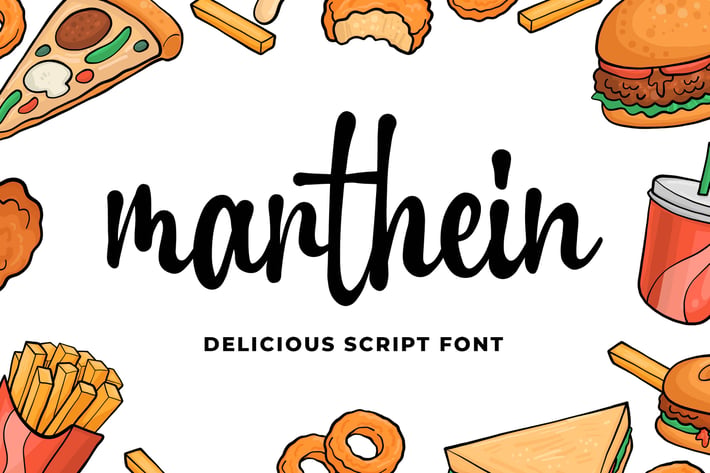
Marthein - Delicious Font
Introducing of our new product the name is Marthein Delicious Font. Marthein good for logotype, label, badge, headline, signature, packaging and any more.